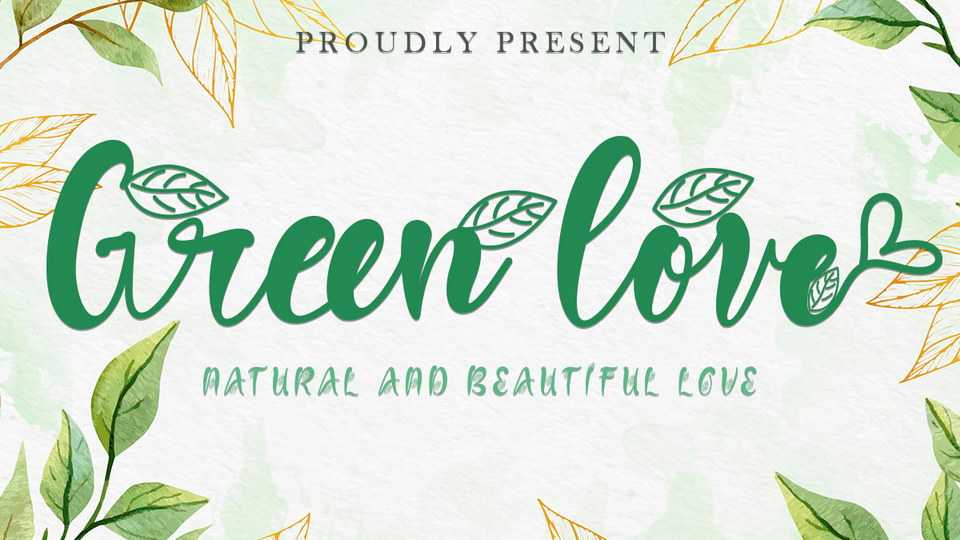
Download Green Love font, a beautiful, unique and elegant font that blends natural and loving. Green Love is very easy to use because it has been designed to make it easy to use.